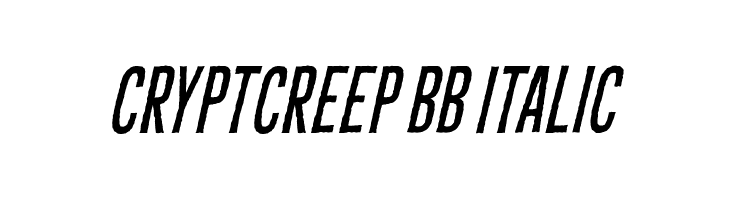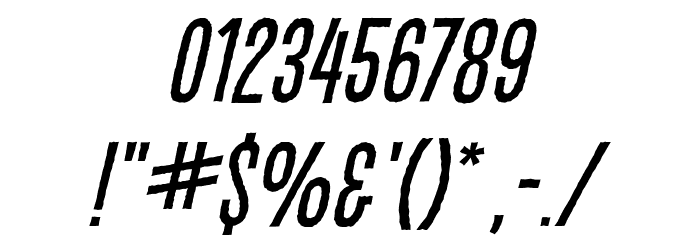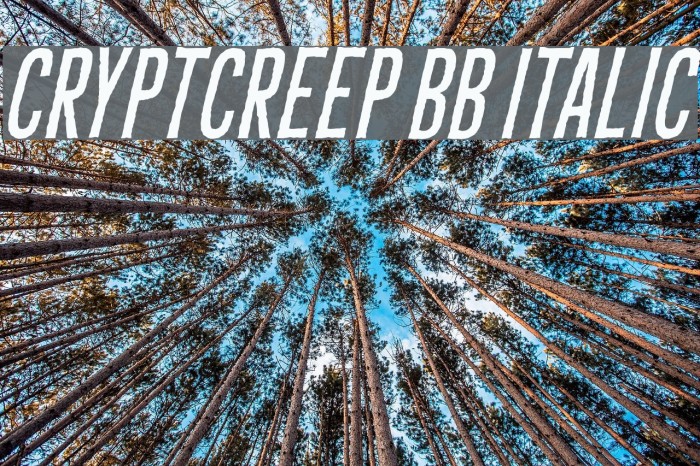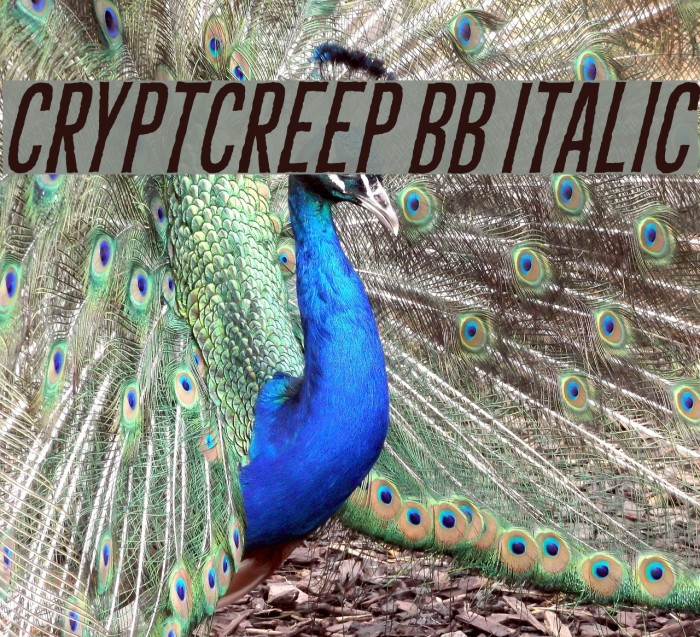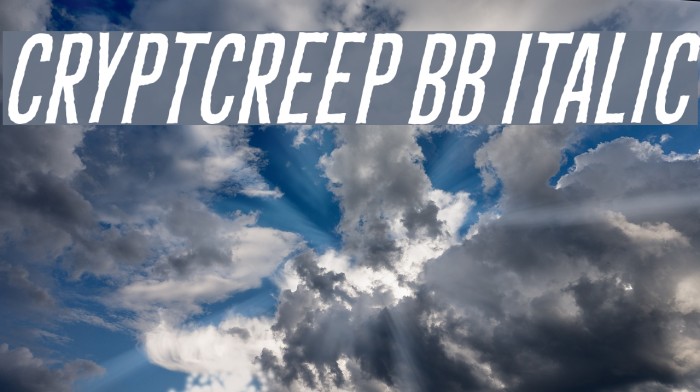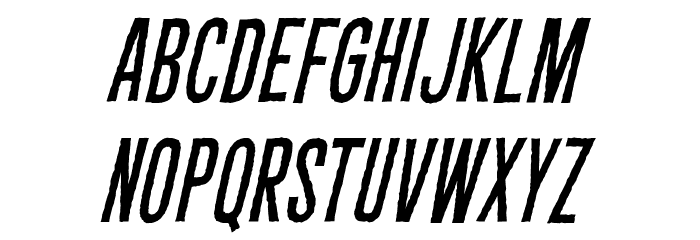
CryptCreep BB Italic Font
This font features a bold, italicized style with a strong slant, giving it a dynamic and energetic appearance. The characters are elongated and slightly condensed, enhancing the sense of movement and urgency. The strokes are consistent in weight, providing a uniform look across all characters. The uppercase and lowercase letters maintain a cohesive design, with sharp angles and clean lines. The numerals and special characters are crafted to match the overall aesthetic, ensuring versatility in various design applications. This font's distinctive style makes it suitable for projects that require a bold and impactful visual statement.
A bold, italicized font with a dynamic and energetic slant.
• Proposed Projects: Ideal for posters, headlines, branding, and advertising materials that need a striking and modern look.
• Category: Sans-Serif
• Bold: Yes
• Italic: Yes
• Weight: Bold
• Width: Condensed
• Character Spacing: Normal
• Contrast: Low
• Overall Style: Modern
• Use Case: Headlines, Logos, Posters